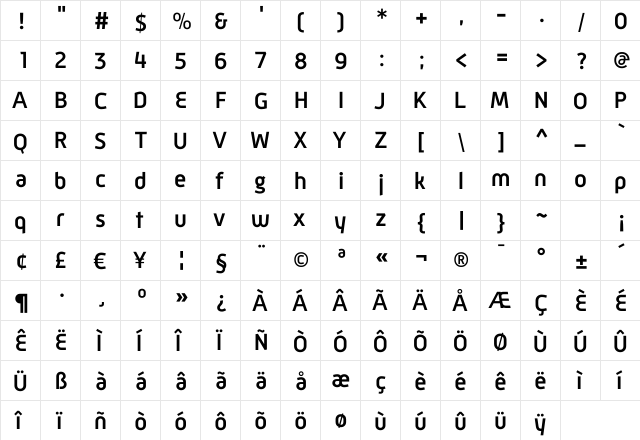
Mic 32Bold Regular
Design Context for Mic 32Bold Typeface
Mic 32Bold takes a measured approach to typography — its balanced proportions and neutral character make it a reliable workhorse for both digital and print work. Its bold stroke weight gives it real presence on the page.